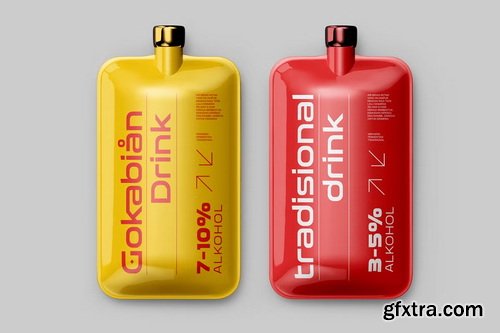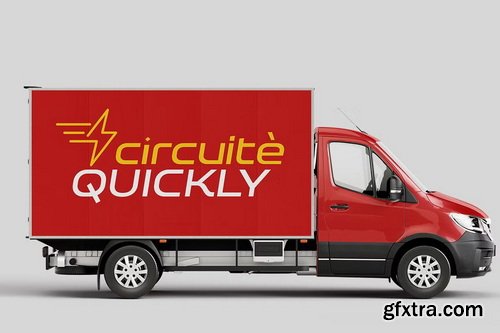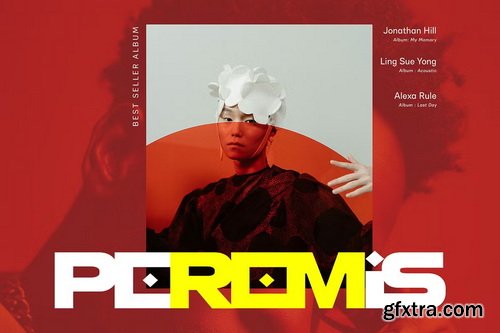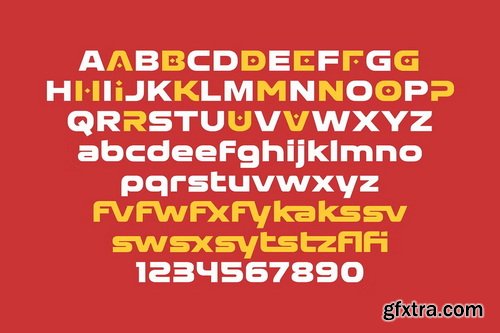
A new Display Font that we created special for Headline, Title and more stand out typography needs. We call it FORDEK. The Fordek font is inspired by the gemotric square, which blends elements of classic and futuristic elements, creating a fresh and charming look. Even though it looks modern, Fordek still has an elegant and polite side. The blend of modern, futuristic, and elegant auras makes it suitable for contemporary designs. The Fordek font has nine weights, alternate, and ligature options that will enhance the look of the design with a deep impression. So enjoy to create any project that will show your main idea out.